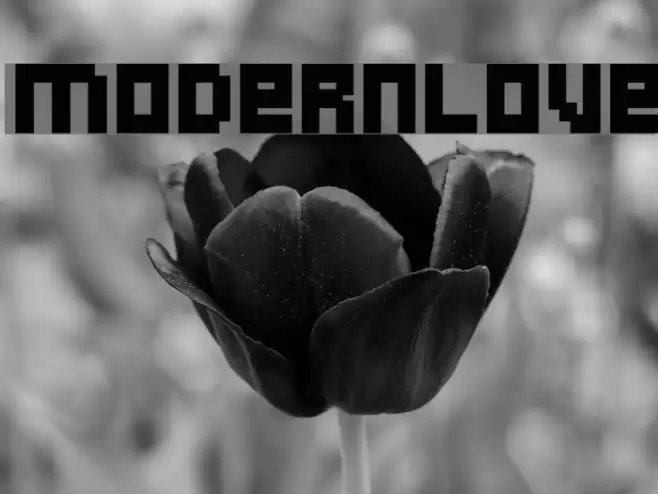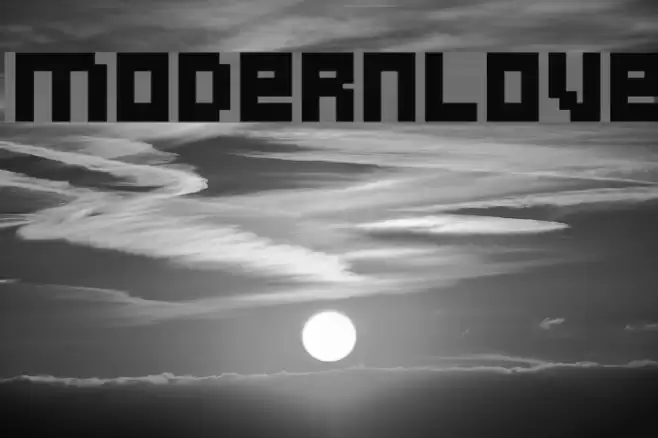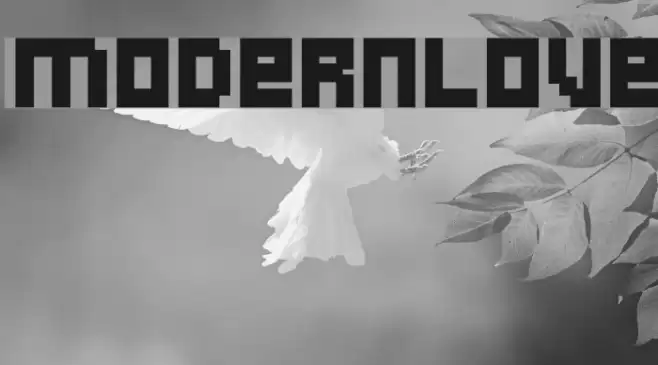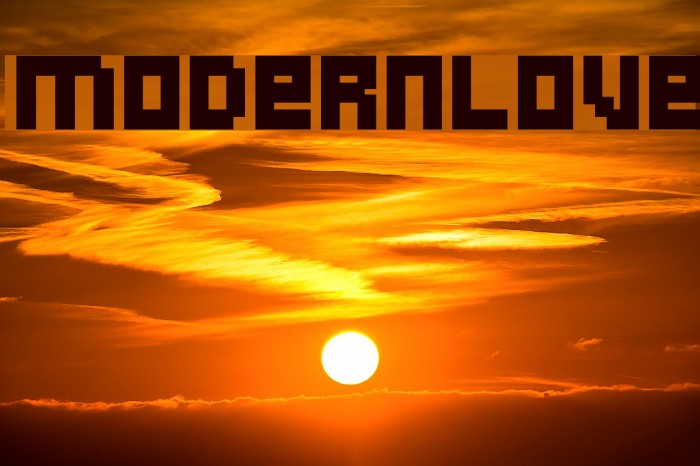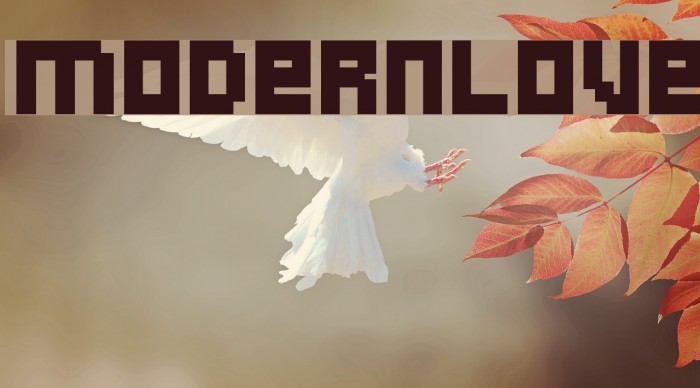
ModernLove Font
ModernLove Description
This font features a bold, blocky design with a distinctly modern and digital aesthetic. Each character is constructed with sharp, angular lines and consistent stroke widths, creating a uniform and cohesive appearance. The uppercase and lowercase letters maintain a similar structure, enhancing readability while preserving the font's unique style. The numerals and special characters are designed to match the overall geometric theme, making them suitable for a variety of applications. The font's strong presence and clear legibility make it ideal for attention-grabbing headlines and digital interfaces.
A bold, geometric font with a modern, digital aesthetic from Uncategorized fonts.